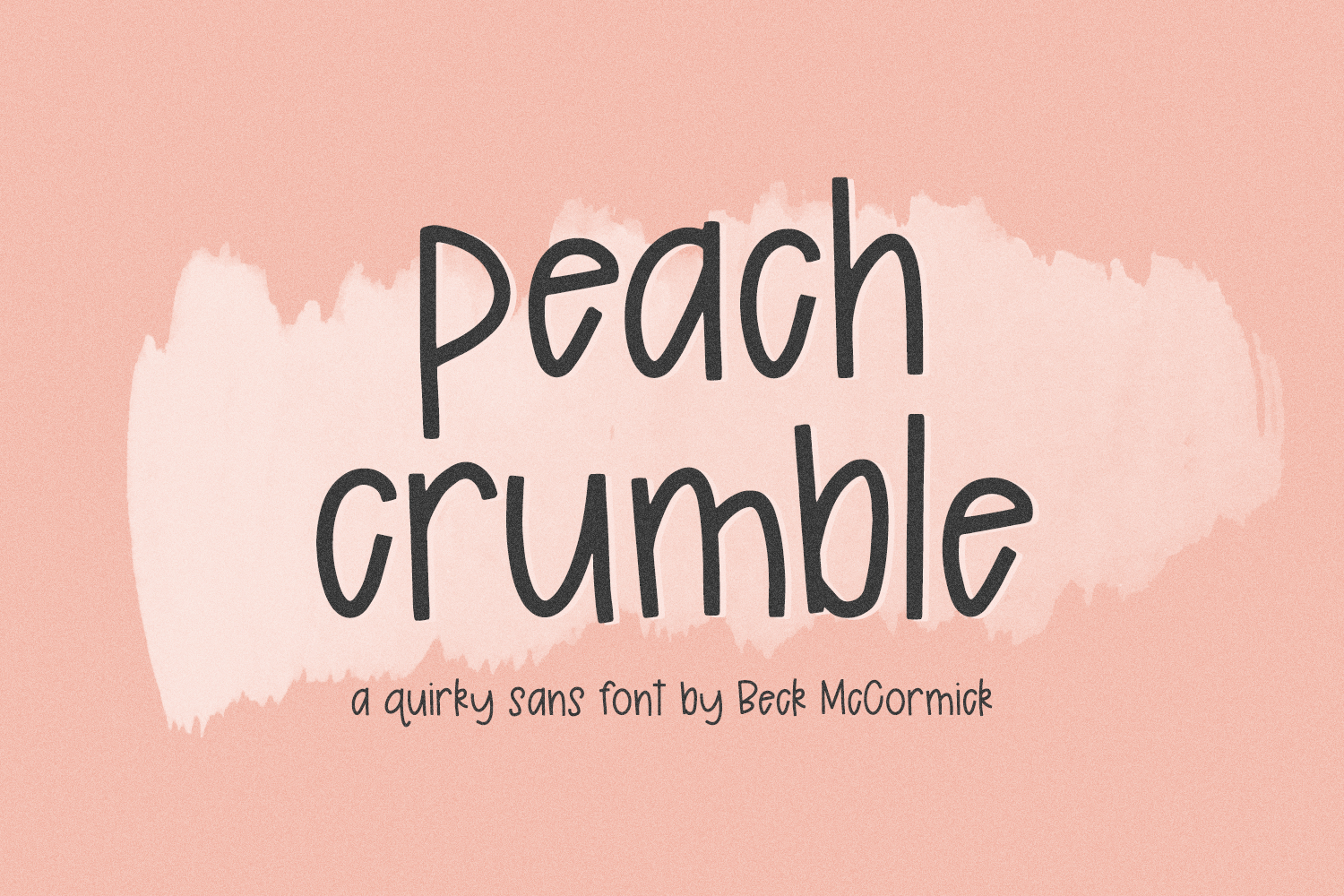
Peach Crumble Sans
Peach Crumble Sans is an adorable handwritten sans font. This font is neat; it also features squared off ends to enhance the legibility and tidiness. Peach Crumble Sans is perfect for logos & branding, greeting cards, painted banners, digital planners, note-taking apps, Canva, Cricut projects, Silhouette projects, designing SVG files, laser cutting projects, & more.